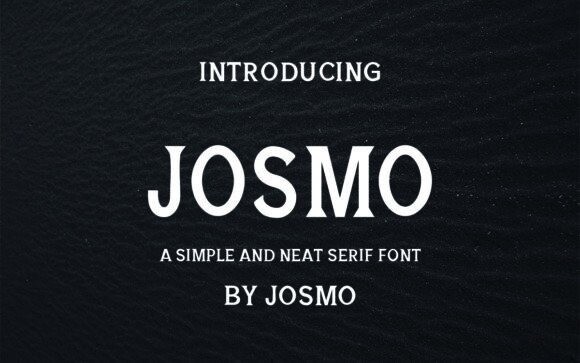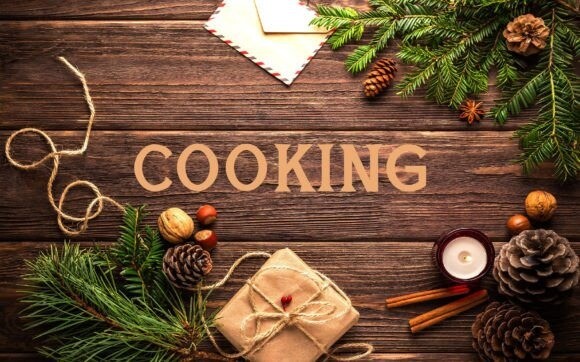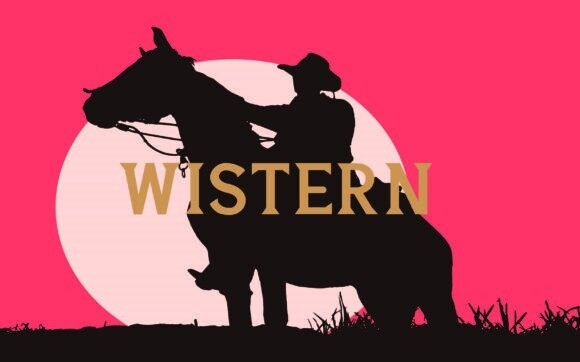
Josmo Font
Josmo is a simple and neat serif font. Contemporary and fresh, it is perfect for any design you wish to create. Add it to your creative projects and make them outstanding!